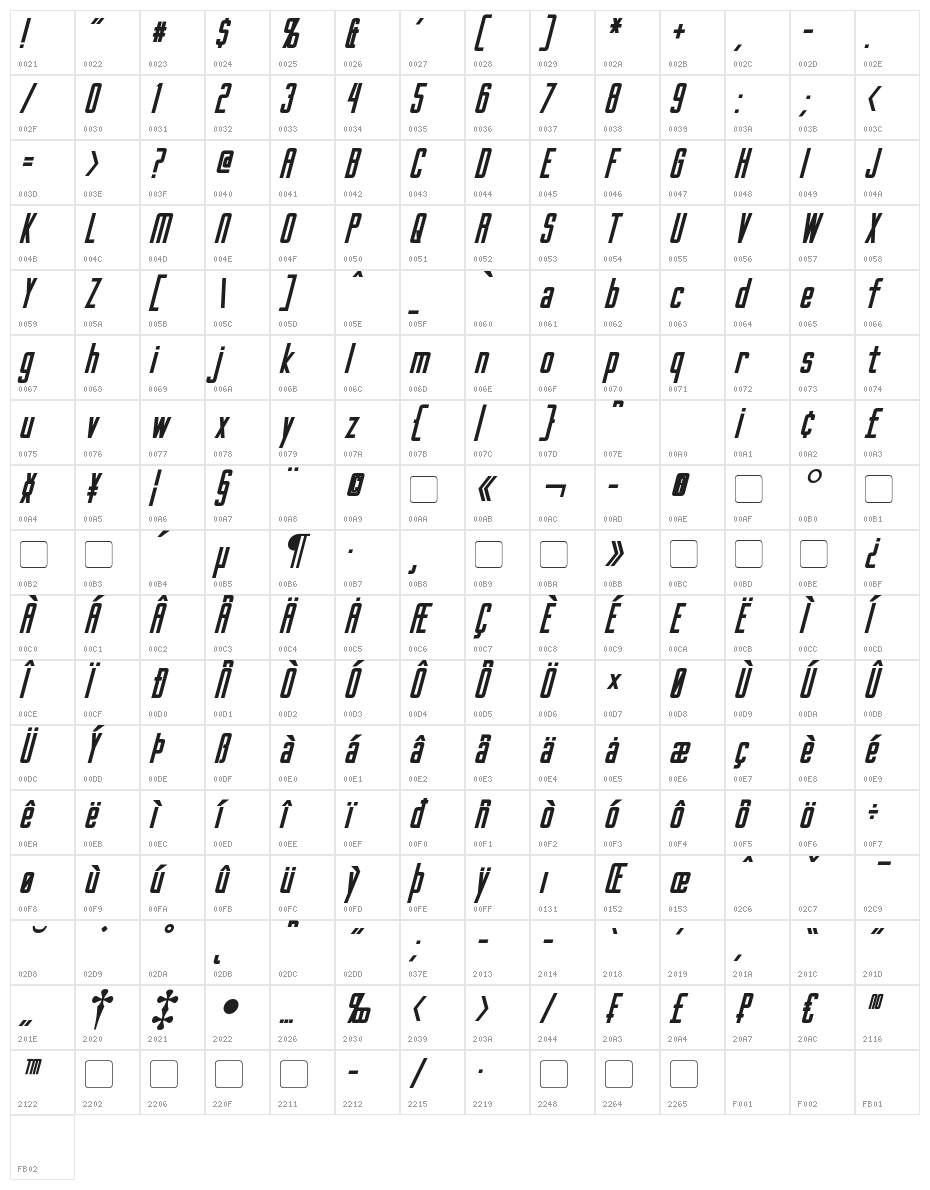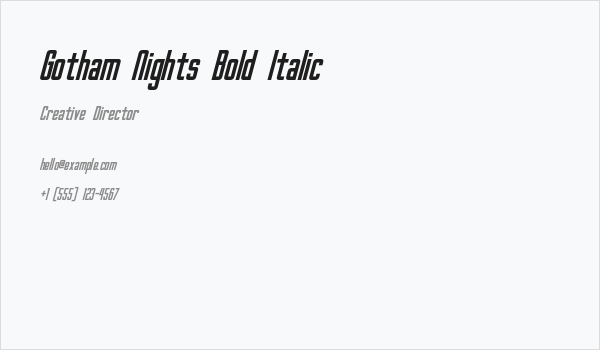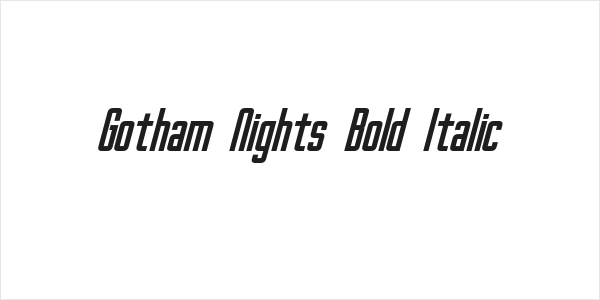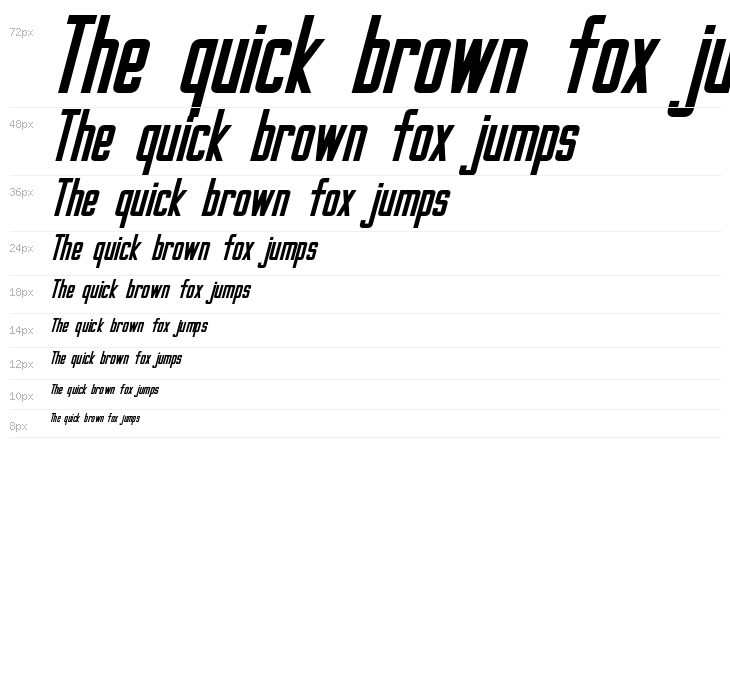
Gotham Nights Bold Italic Font
Gotham Nights Bold Italic Description
This font exhibits a bold and italicized style with a modern, sleek appearance. The characters are elongated and slightly condensed, giving a sense of forward motion and dynamism. The uppercase and lowercase letters maintain a consistent slant, enhancing the italic effect. The numerals are equally bold and follow the same slanted design, ensuring uniformity across all characters. Special characters are included, matching the overall aesthetic with sharp angles and clean lines. The font's design is suitable for projects that require a strong, impactful presence, such as branding or advertising.
| Proposed Projects | Ideal for branding, advertising, headlines, and any project requiring a strong visual impact. |